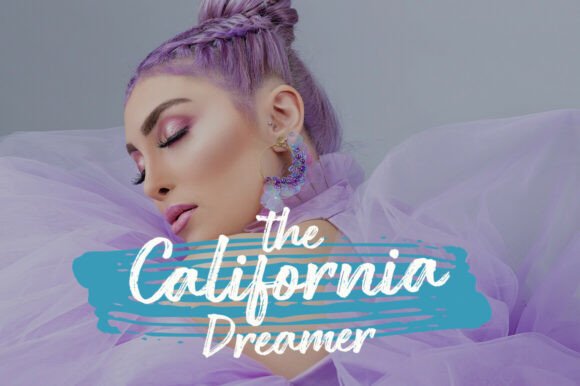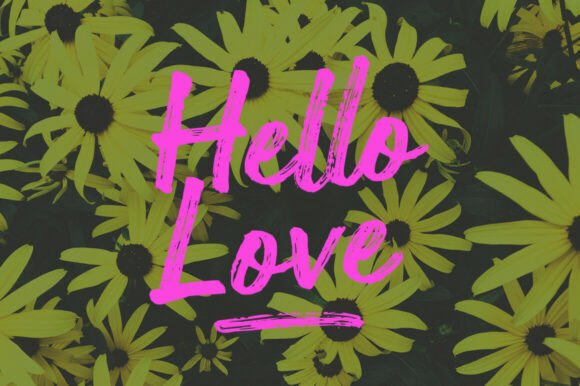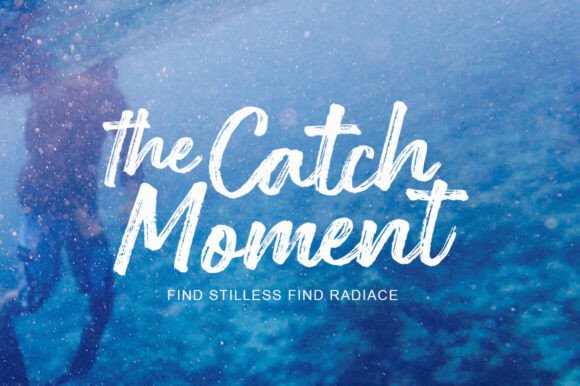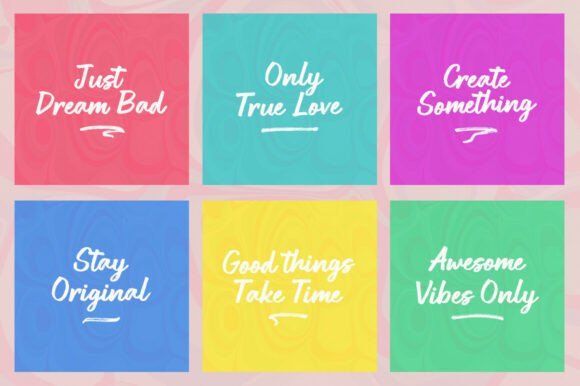
Introduction to Mandor Brush Font
Remember that moment when you’re brainstorming a creative project, and you need a design element that screams “I’m here, and I’m bold!”? For many designers, that moment is when they stumble upon the perfect font – one that adds an extra layer of personality to their work. If you’re on the hunt for that special something, we’ve got you covered. Say hello to the Mandor Brush Font, a game-changing addition to your design arsenal.
This stunning font boasts dry brush strokes, natural texture, and an organic energy that’s hard to resist. Whether you’re aiming for edgy or artistic, Mandor makes a statement with ease. Its versatility is what makes it a valuable resource for designers, and we’re excited to share it with you.
Key Features of Mandor Brush Font
- Hand-drawn design with a unique, artistic feel, perfect for creative projects that require a personal touch.
- High-quality font with transparent background, ideal for designers who need a versatile design resource.
- Features a bold, expressive style that’s perfect for adding a touch of personality to your design projects.
Honest Review: Mandor Brush Font
As a designer, I’m always on the lookout for high-quality design resources that can elevate my creative projects. The Mandor Brush Font is one such resource that caught my attention.
What works well: ✨ The Mandor Brush Font has a unique, hand-drawn feel that adds a personal touch to any design. The font is also highly customizable, making it easy to adapt to different design styles. Additionally, the free download option is a major plus, making it accessible to designers of all levels.
Some limitations: ⚠️ The font may not be suitable for projects that require a more formal or traditional look. Additionally, the transparent background option can sometimes be a bit tricky to work with, especially when combining with other design elements.
Overall impression: I was impressed by the Mandor Brush Font’s versatility and creativity. It’s a great addition to any designer’s toolkit, and I’d definitely recommend it for projects that require a unique and personal touch.
Pros:
- Unique, hand-drawn feel
Cons:
- May not be suitable for formal or traditional projects
- Transparent background option can be tricky to work with
Tips for Getting the Most Out of Mandor Brush Font
To get the most out of Mandor Brush Font, use it on a transparent background to create a seamless design. You can also experiment with different font sizes and styles to create a unique look. Additionally, consider pairing Mandor Brush Font with other high-quality design resources to create a cohesive and professional design.
Common Use Cases for Mandor Brush Font
Mandor Brush Font is a versatile design resource that can be used in a variety of creative projects, including invitations, social media graphics, and branding materials. It’s also a great option for designers who want to create a unique and eye-catching look.